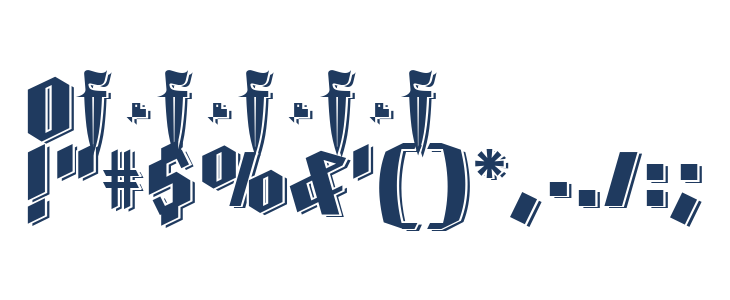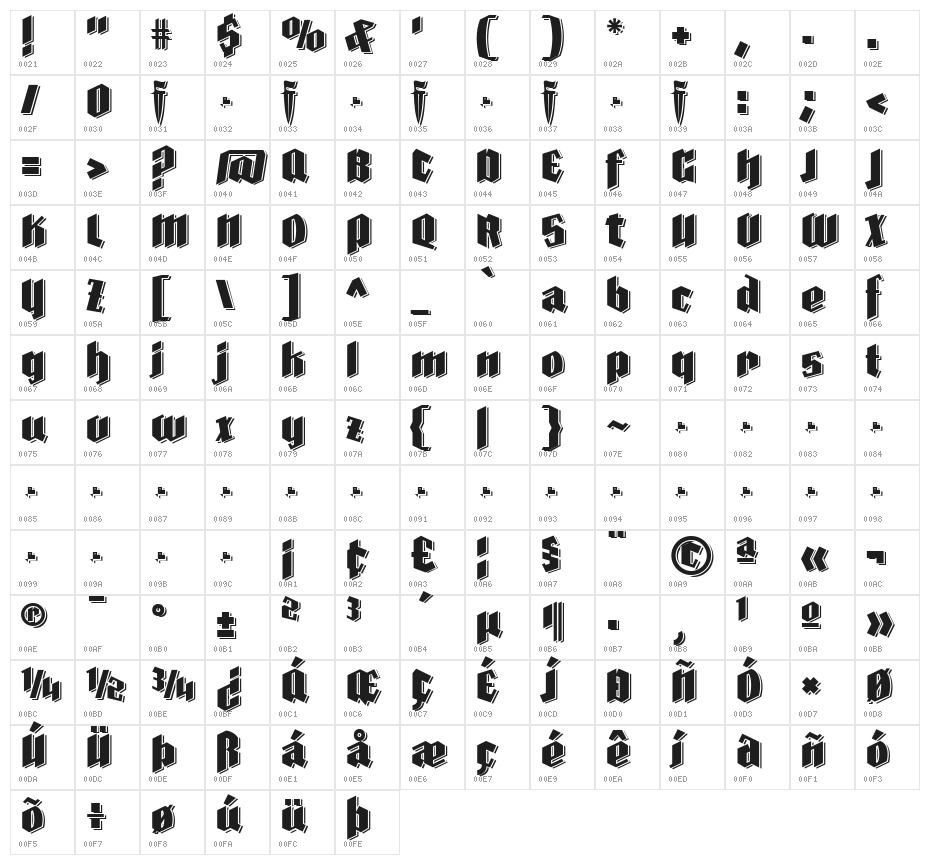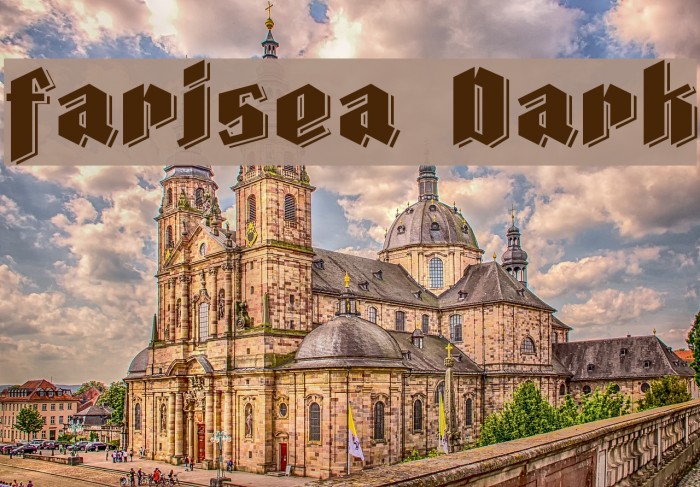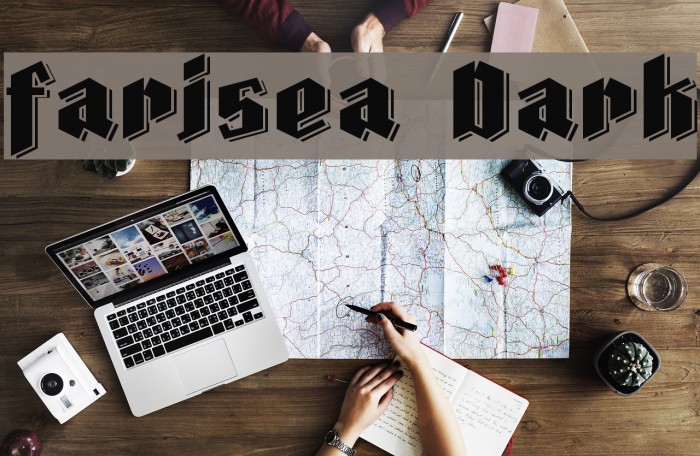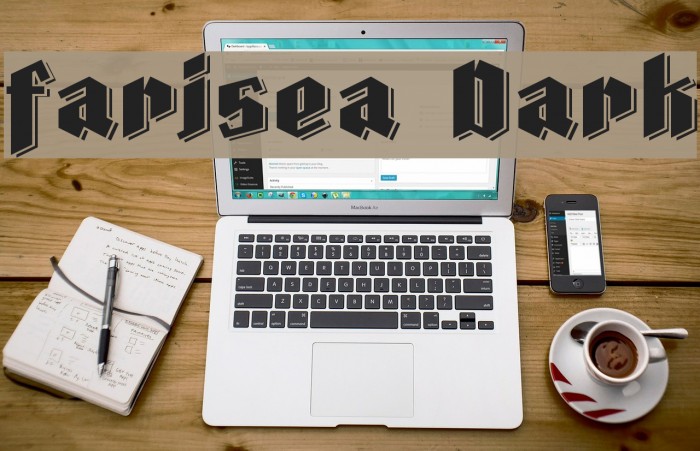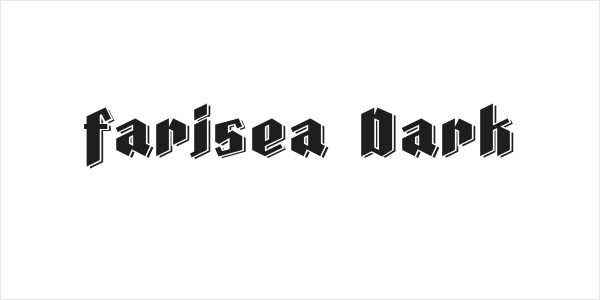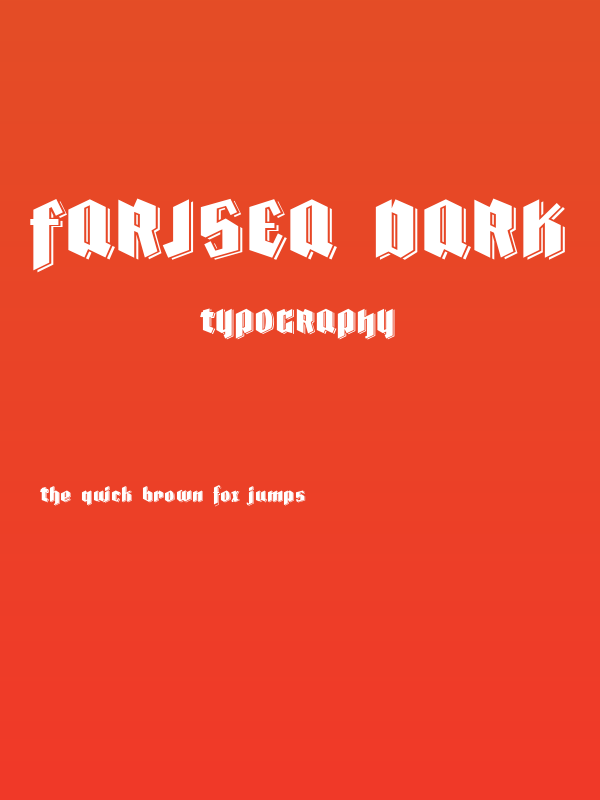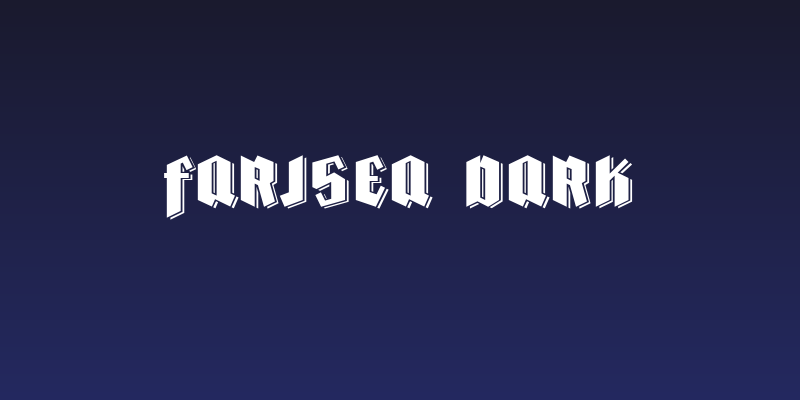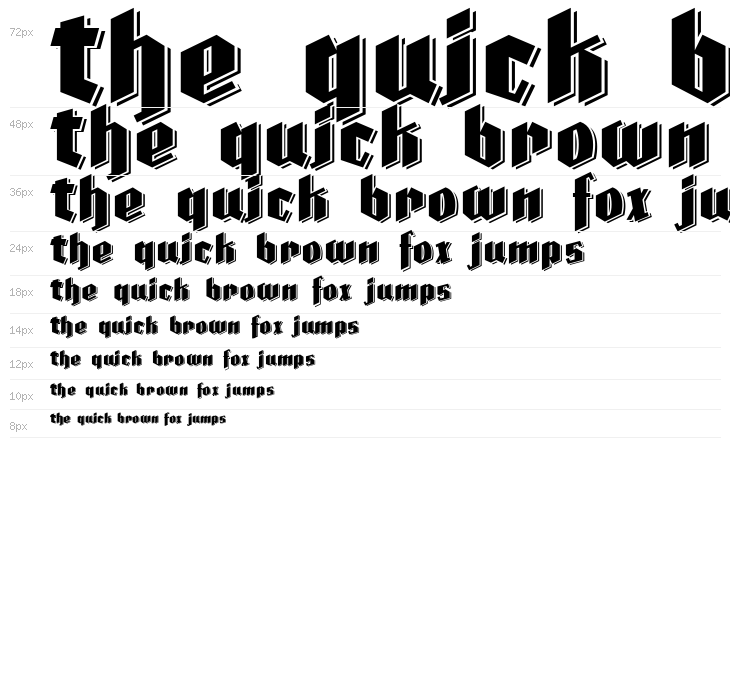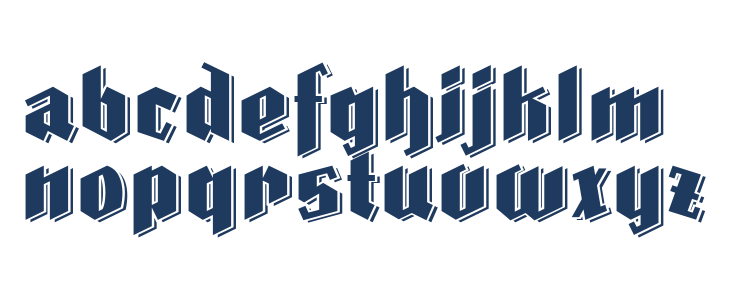
Farisea Dark Font
Farisea Dark Description
This font features a bold, angular design with a strong presence, reminiscent of Gothic or medieval styles. The characters are sharply defined with a three-dimensional effect, giving them a shadowed appearance. The uppercase and lowercase letters maintain a consistent style, with exaggerated serifs and a blocky structure. The numerals and special characters follow the same bold and dramatic aesthetic, making them stand out prominently. This font's unique style is suitable for projects that require a striking and memorable visual impact.
| Proposed Projects | Ideal for posters, album covers, video game titles, and any project needing a dramatic, eye-catching typeface. |